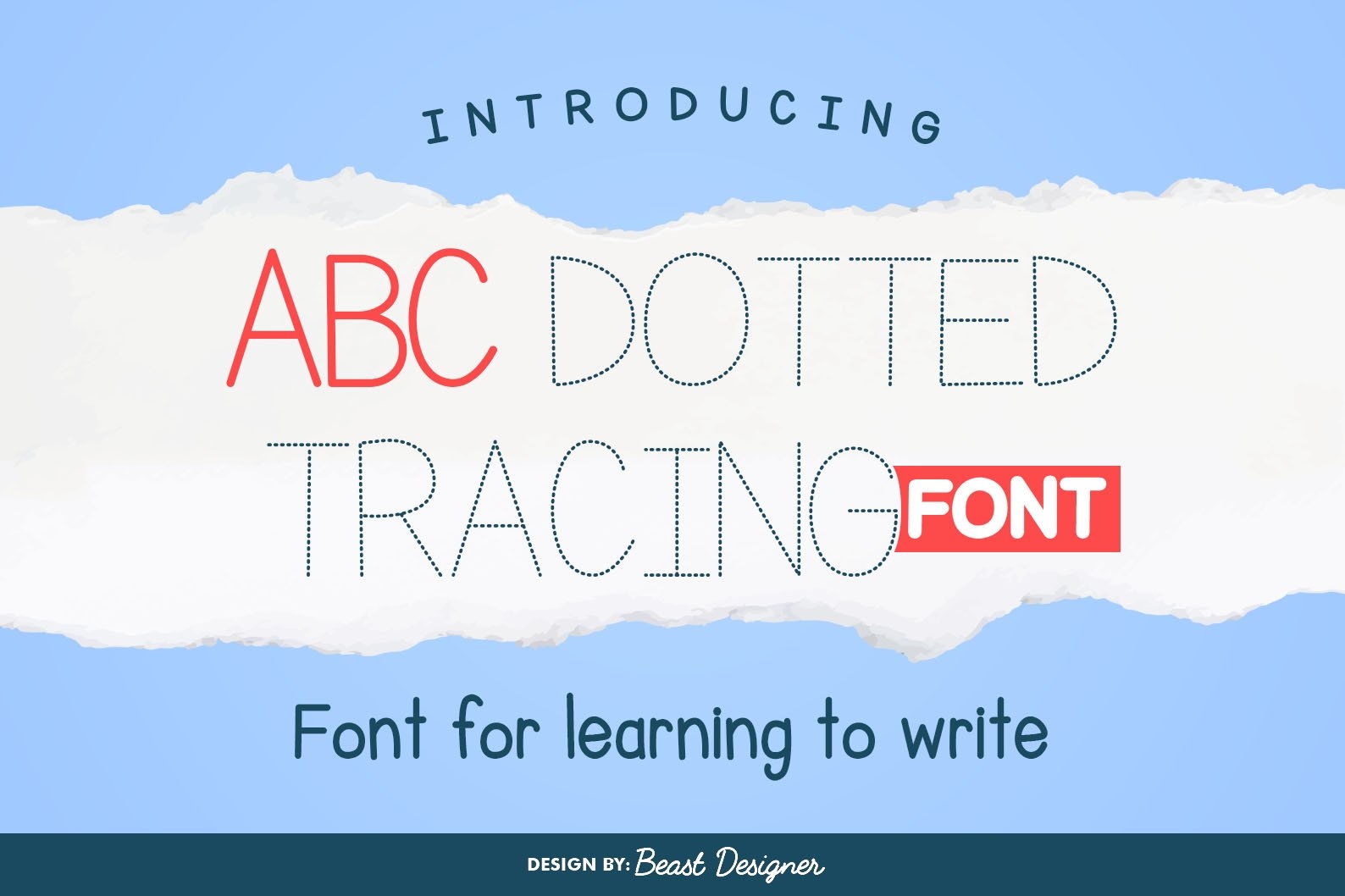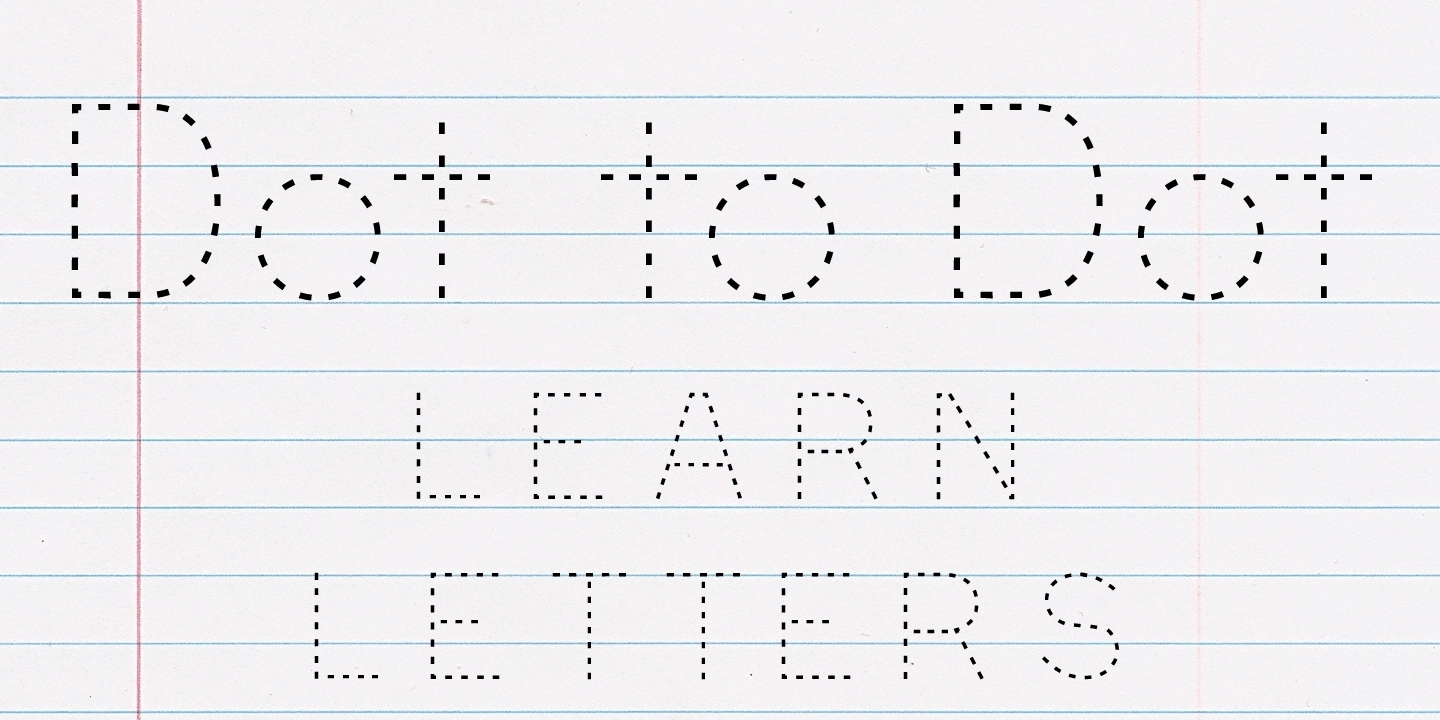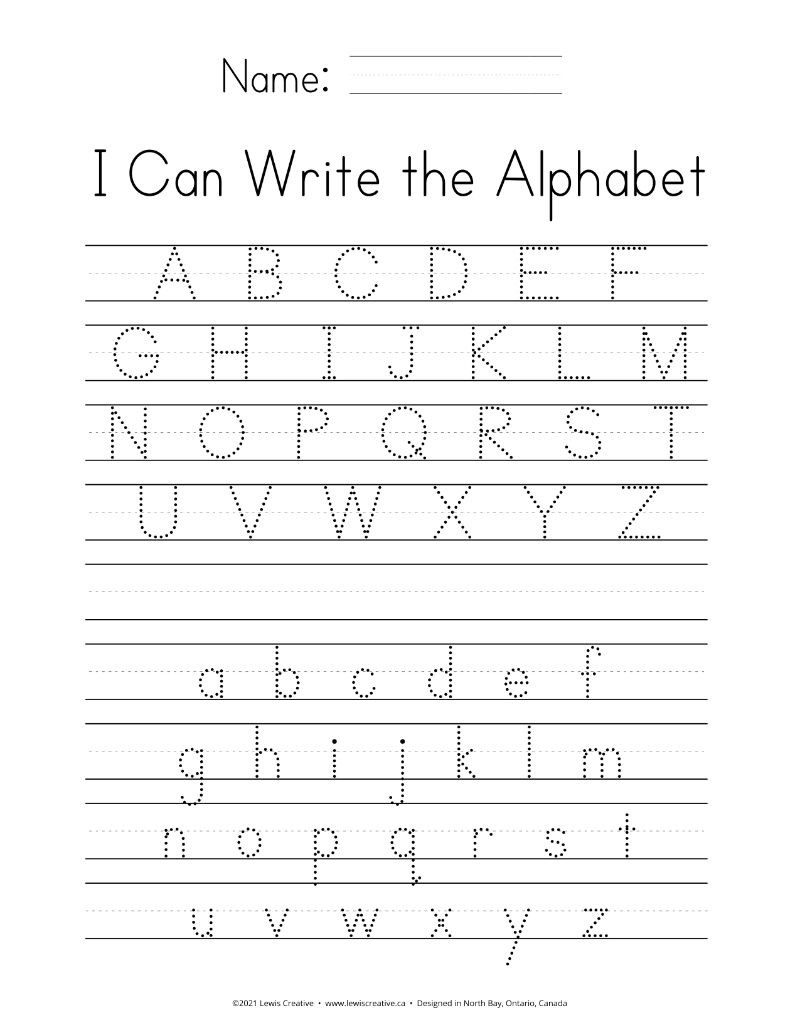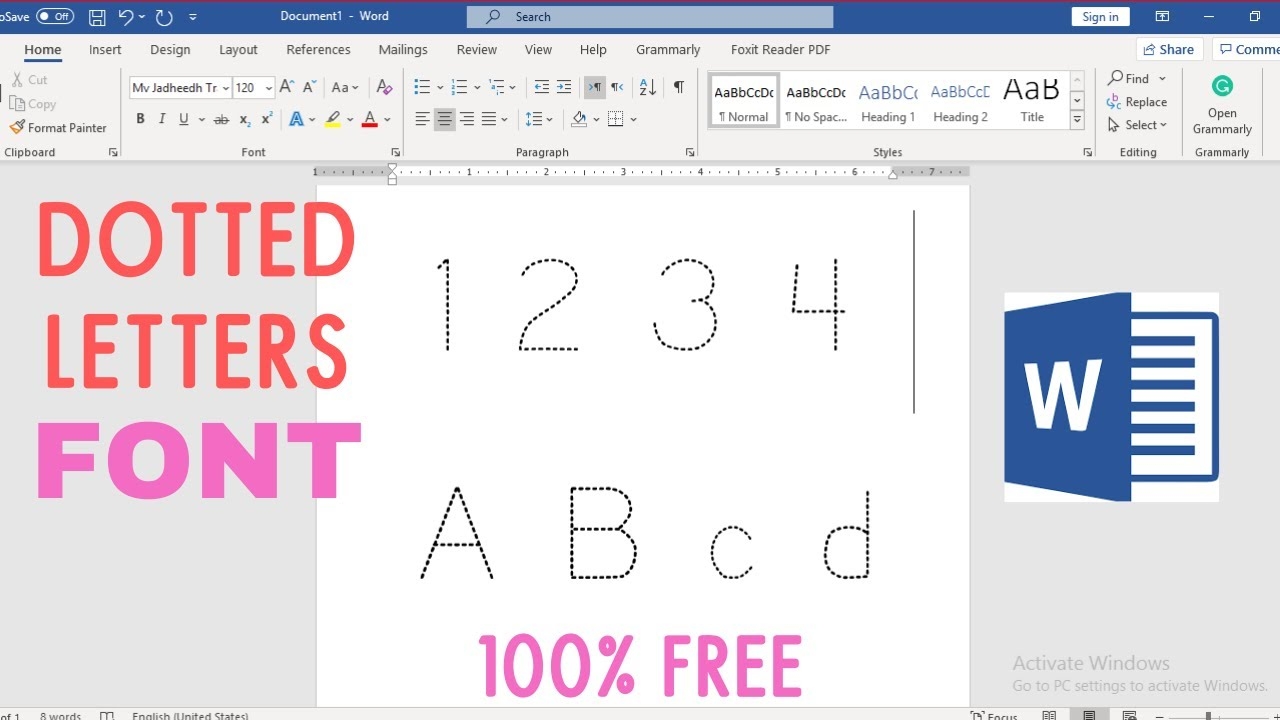
Dotted Font For Tracing Free
Finding the right tools for tracing can be a game-changer, especially for parents and teachers. One popular option is using a dotted font for tracing, which makes learning fun and engaging for kids.
Many websites offer free dotted fonts specifically designed for tracing. These resources are perfect for educators looking to enhance their lesson plans or parents wanting to support their child’s learning at home.
When choosing a dotted font, consider the age and skill level of the child. Some fonts are simpler, while others may include more complex shapes. This variety ensures that every child can find a suitable option.
Using a dotted font for tracing can also encourage creativity. Kids can color in the letters they trace, adding a personal touch to their work. This combination of learning and creativity keeps them engaged.
Incorporating dotted fonts into daily practice can significantly improve handwriting skills over time. Regular tracing helps build muscle memory, leading to more confident writing as children progress.
Exploring free dotted fonts for tracing opens up a world of learning opportunities. With the right resources, children can enjoy developing their handwriting skills while having fun along the way.